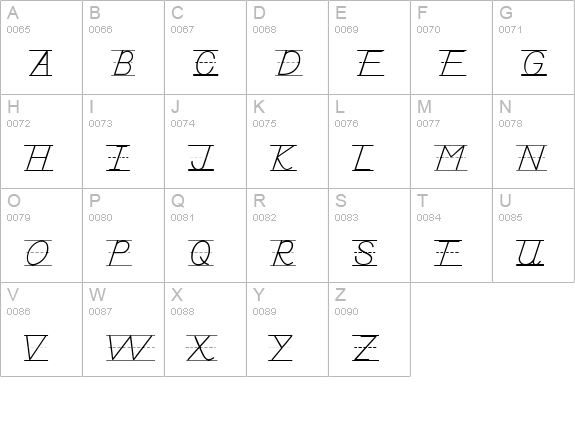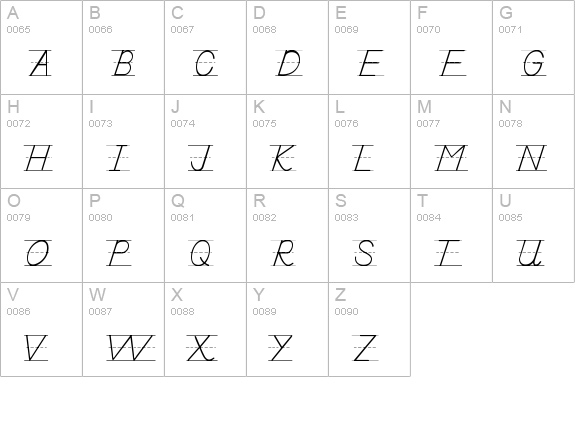
AbcDNManusLined Font Details
Introducing AbcDNManusLined font, a charming and elegant typeface that exudes sophistication and grace. This beautifully crafted font features delicate lines and intricate details that make it perfect for adding a touch of refinement to any project. AbcDNManusLined font is not only visually appealing but also highly versatile, making it suitable for a wide range of design applications. Whether you're working on a wedding invitation, a branding project, or a social media graphic, this font is sure to elevate your design to the next level. The best part? AbcDNManusLined font is available for free download at FontsMarket.com! So go ahead and add this exquisite font to your collection today and unleash your creativity with its timeless appeal.